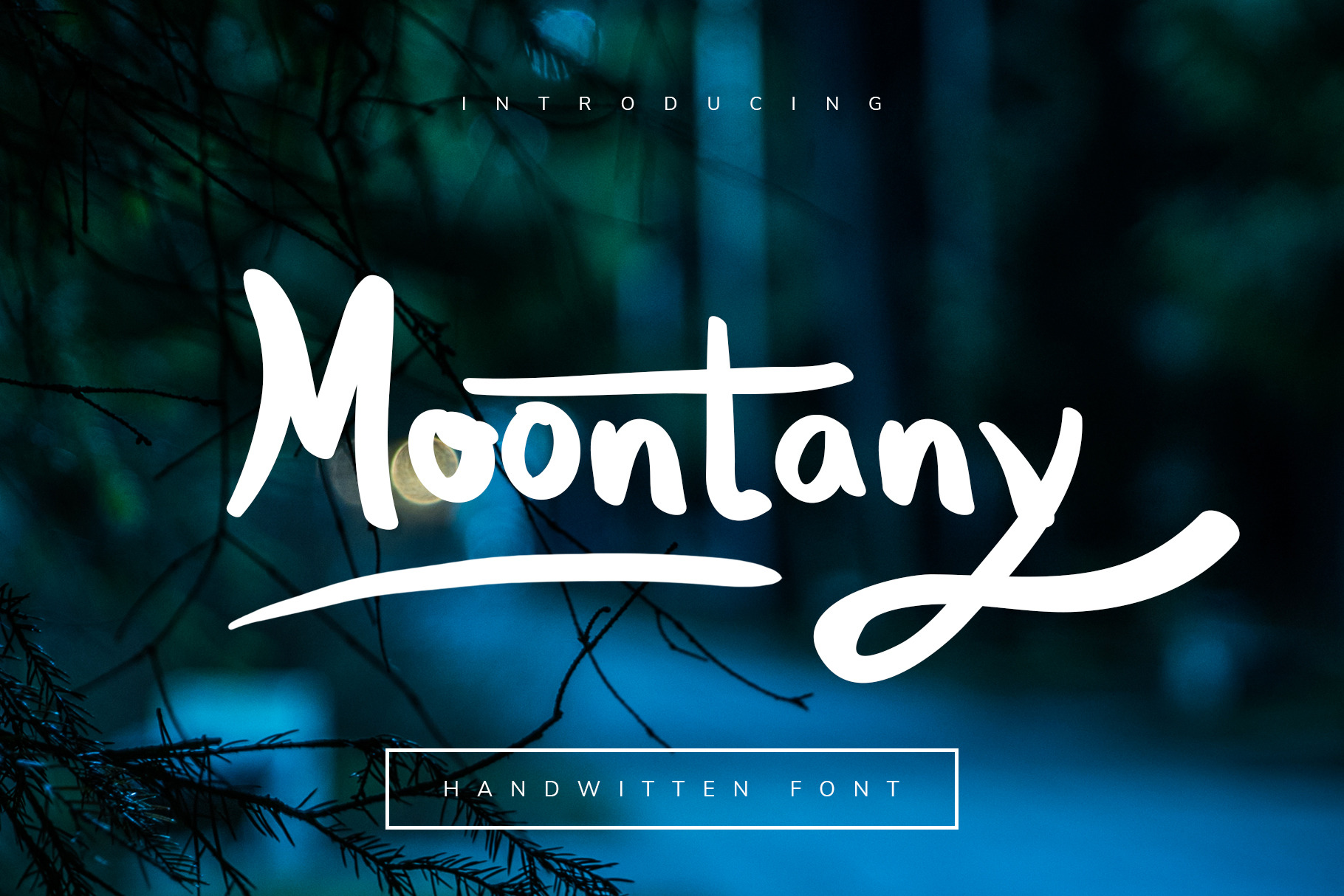
Moontany Font
Meet Moontany Font, This is hand-drawn fonts truly give off a real personal touch to your projects
It is perfect used for various purposes such as editorial design, branding, art quote, book / cover title, poster, apparel design, product packaging, label, special events or anything that need hand-drawn taste.